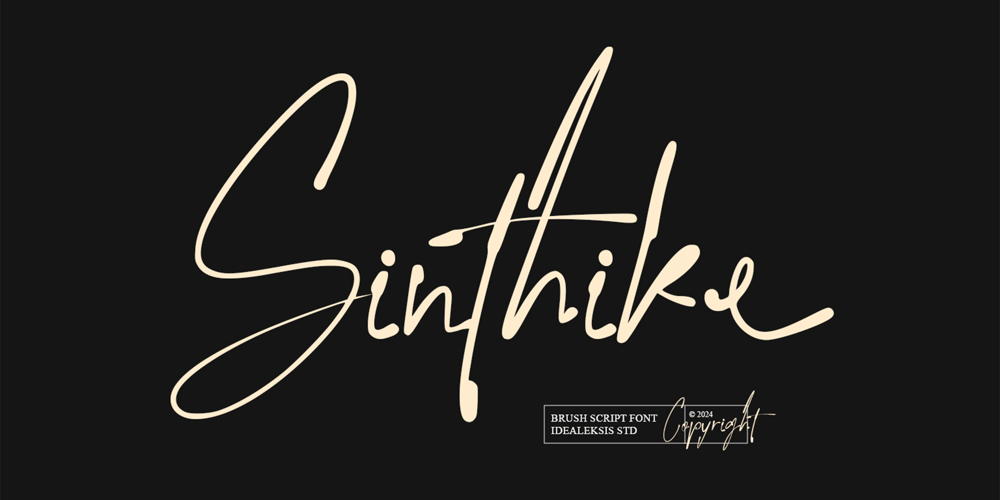
Sinthike Font Family was designed by Ideal Eksis and published by Idealeksis Studio. Sinthike contains 1 styles and family package options. “Sinthike” is a beautifully crafted script font that captures the essence of hand-written elegance. With its flowing, connected characters and a personal touch, it exudes warmth and charm. Each stroke in “Sinthike” is carefully designed to reflect the natural variations and fluidity of handwriting, making it perfect for invitations, branding, and editorial designs. This font adds a personal, human element to any project, inviting readers into a world of grace and style. Whether it’s for a boutique logo or a heartfelt letter, “Sinthike” delivers a bespoke experience that is both intimate and inviting